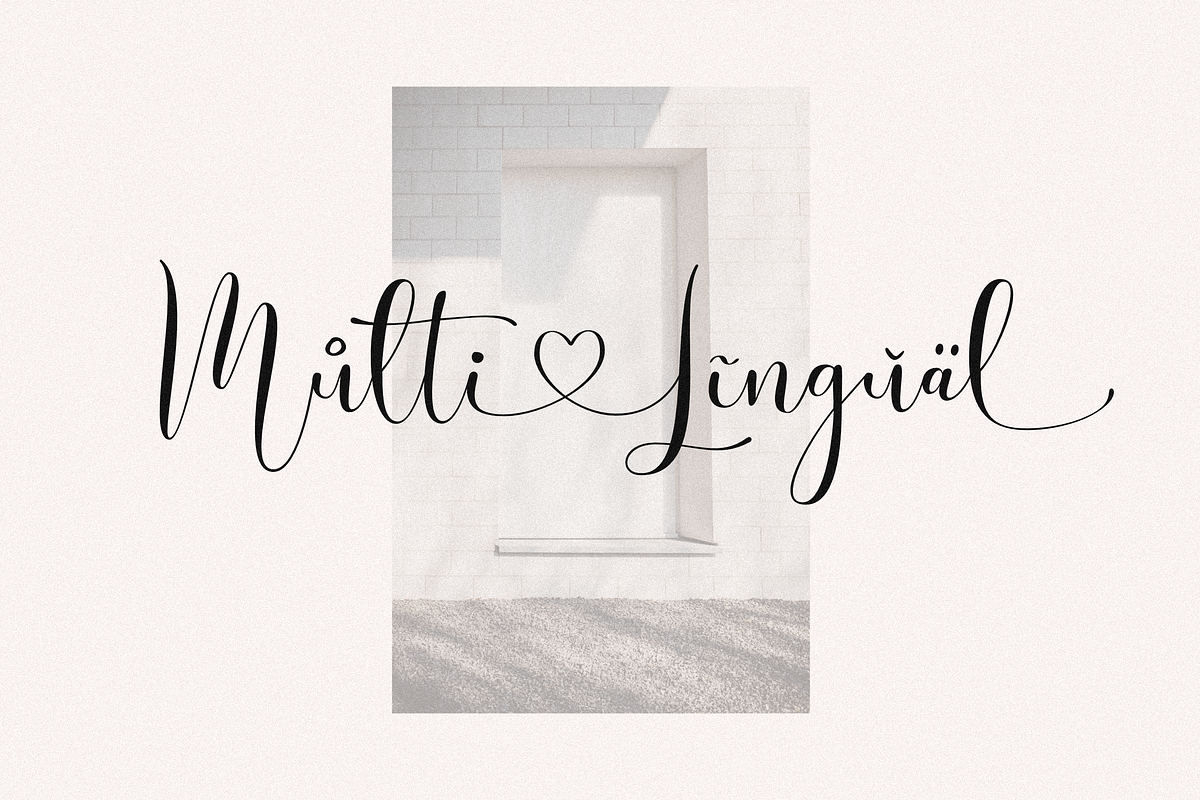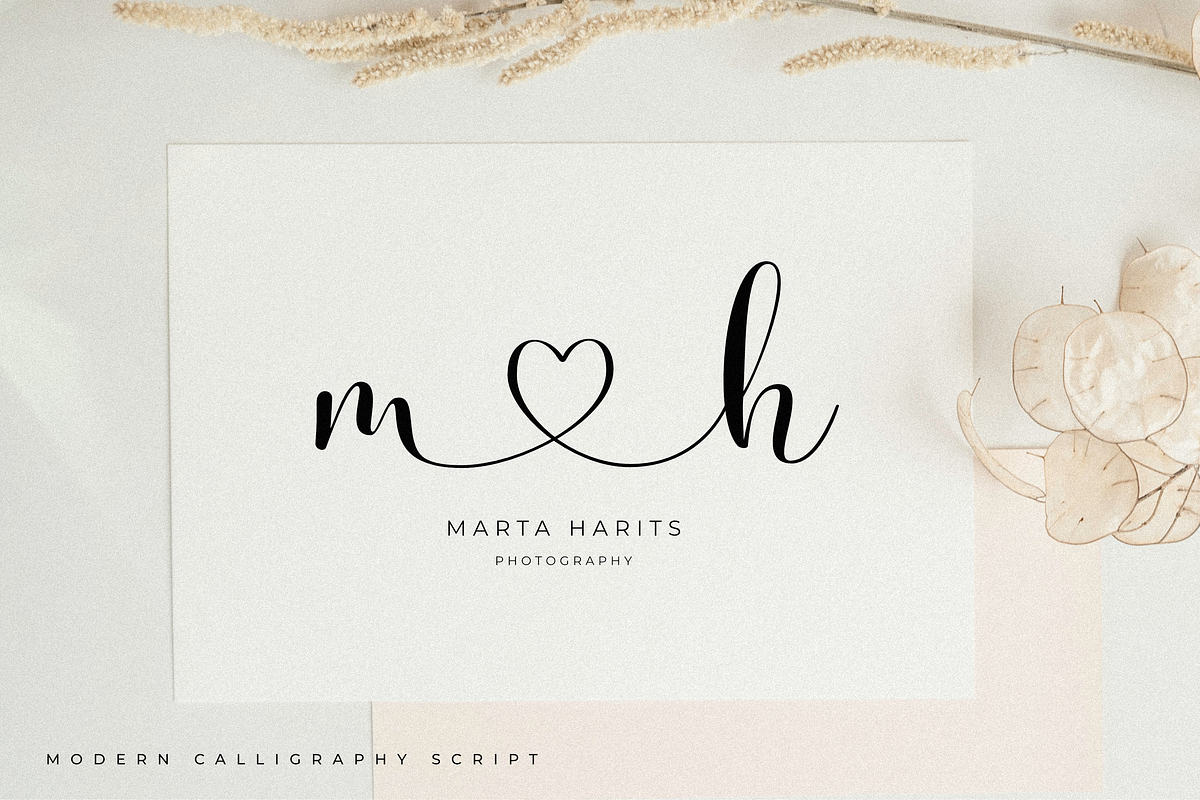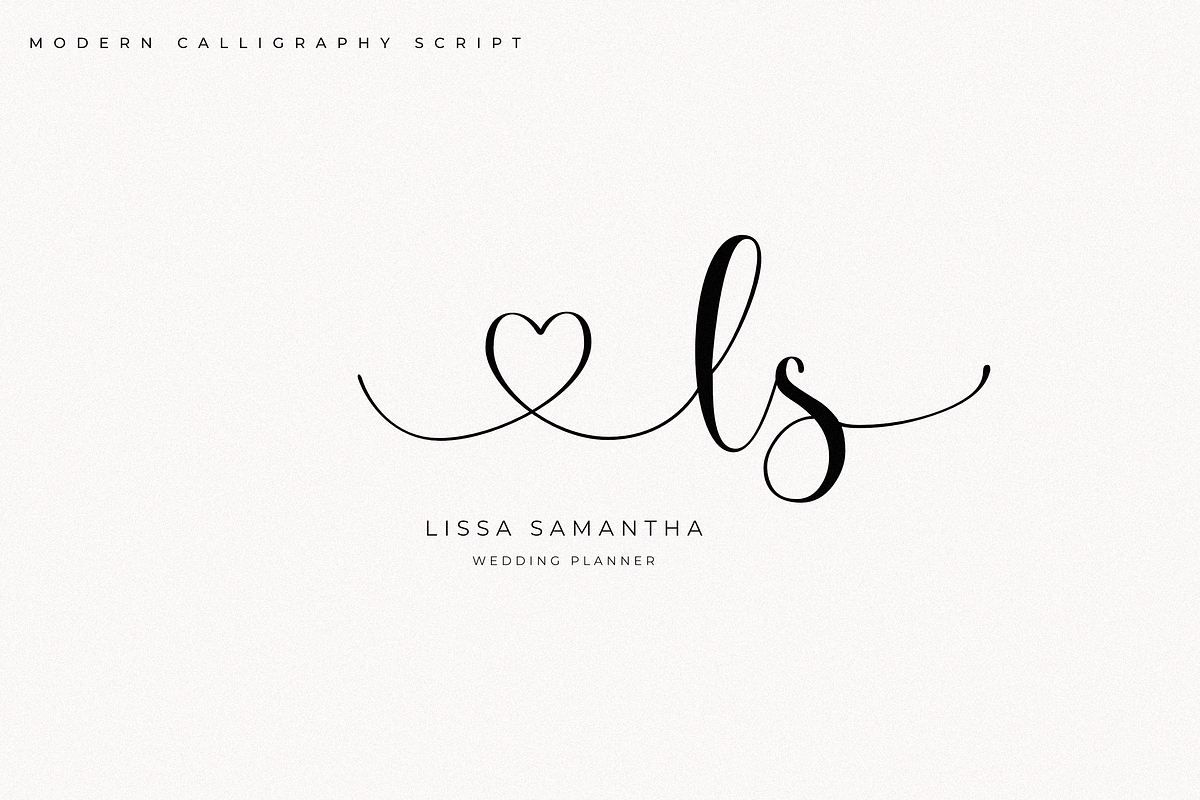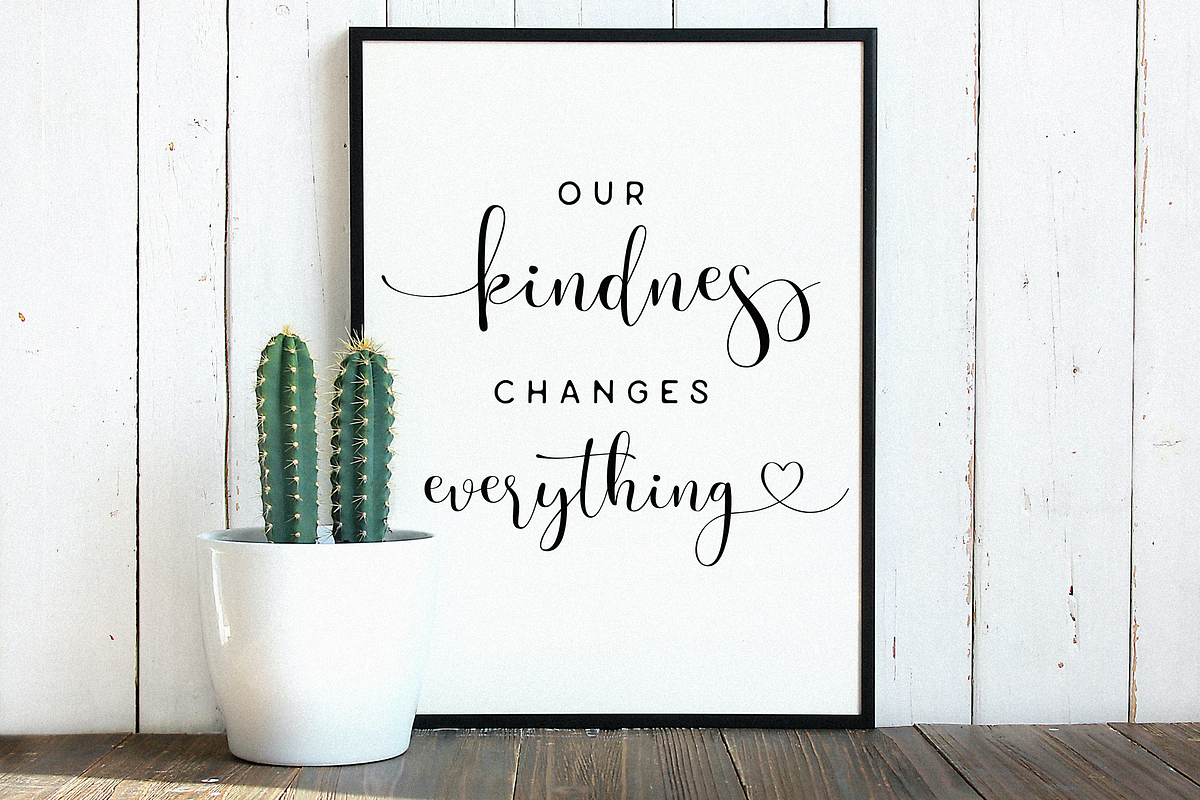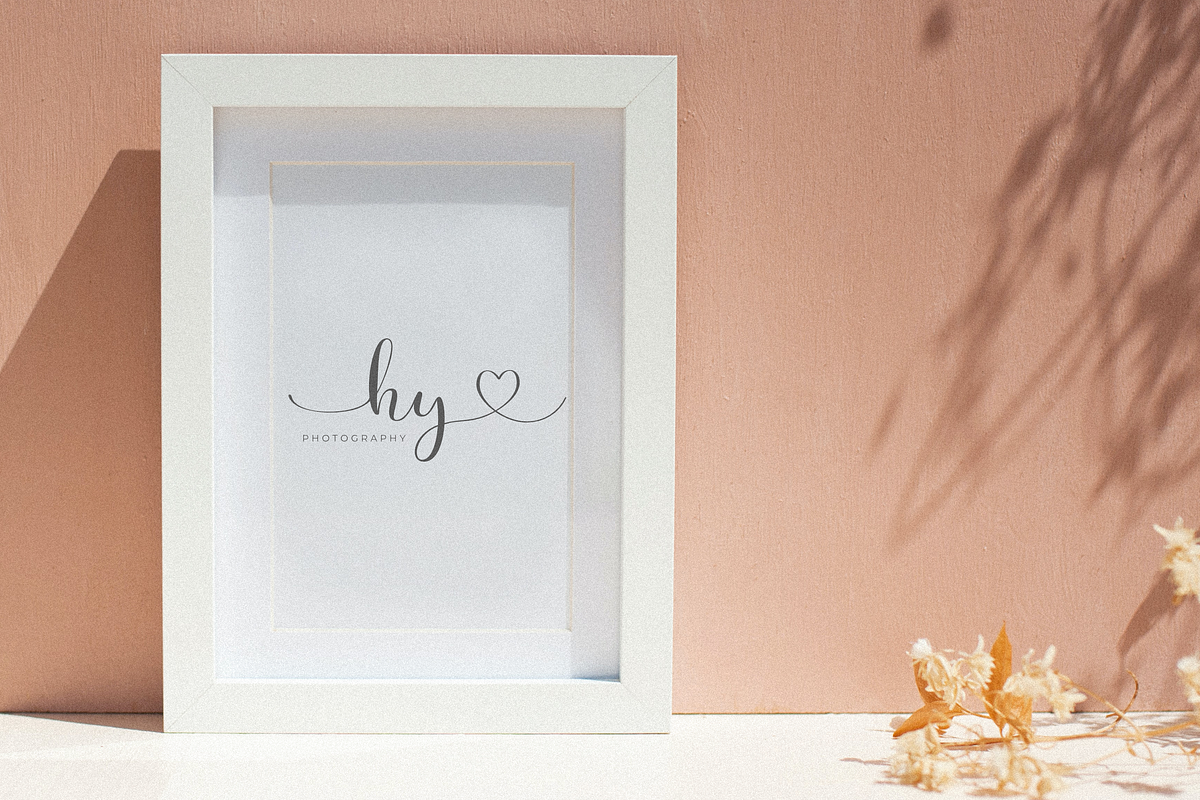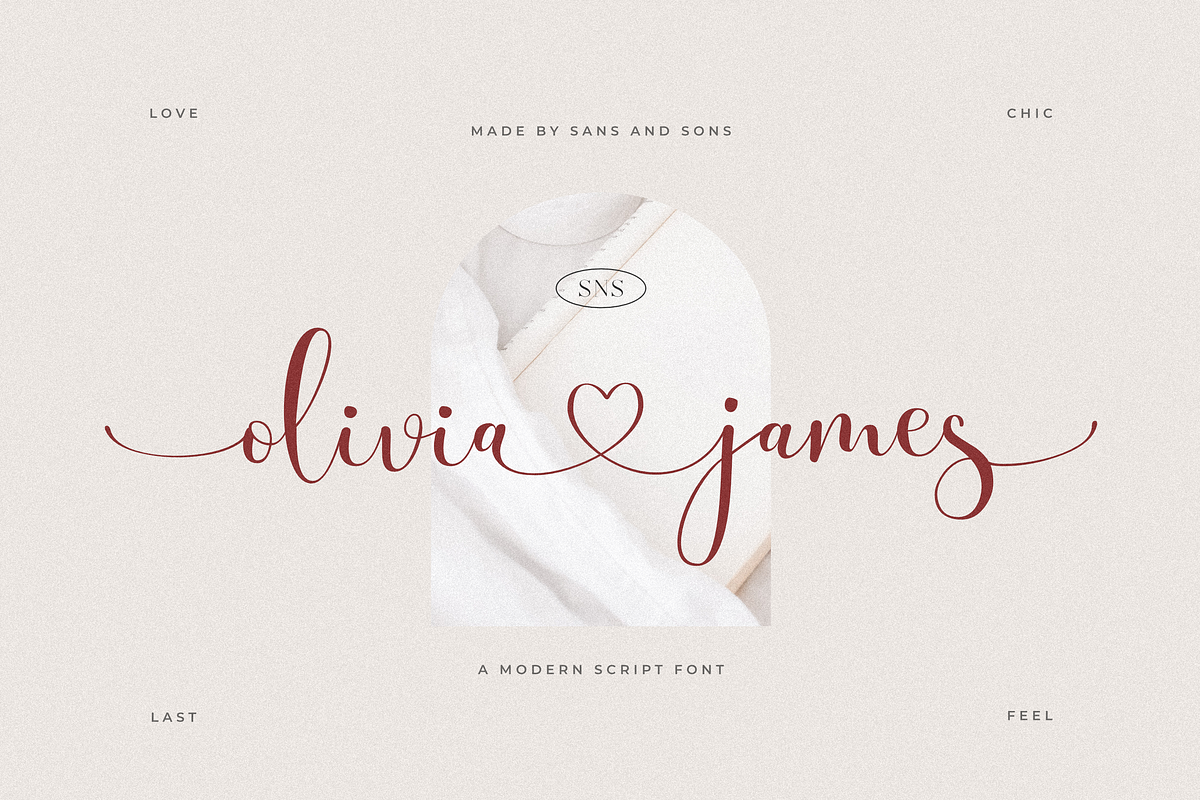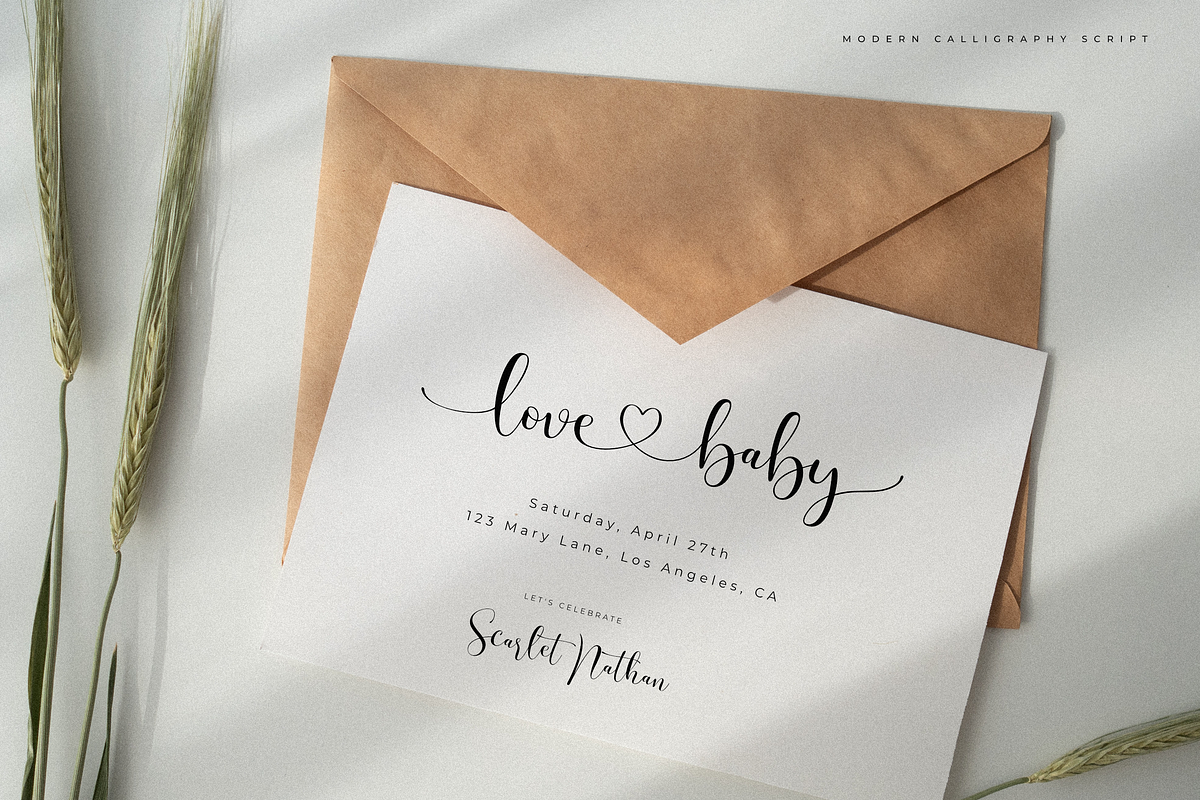
Olivia James - Chic Font
Olivia James - a Chic and Lovely Script Font by Sans and Sons
Introducing our new "Olivia James" Modern Calligraphy Script with Elegant Style is perfect for branding, logos, invitation, master heads, and more.
Olivia James Features :
- Multilanguage